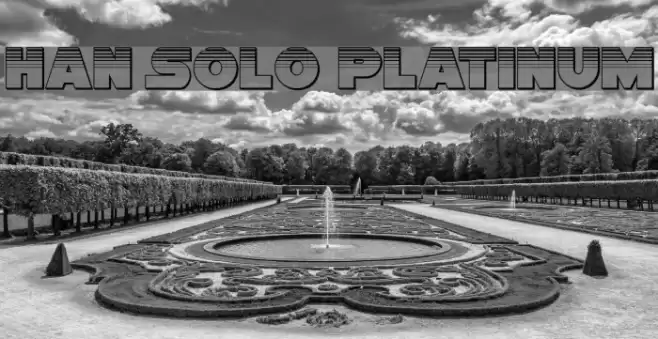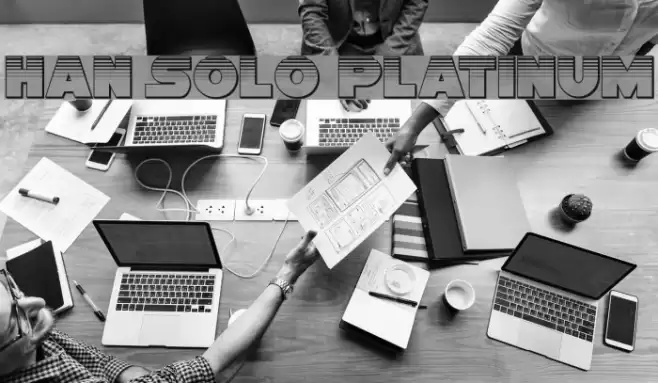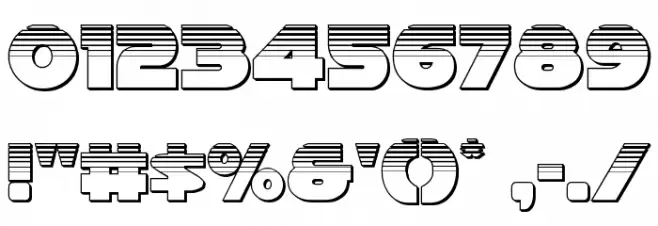
Han Solo Platinum Font
Han Solo Platinum Description
This font features a bold, futuristic design with a distinct geometric structure. Each character is outlined with multiple horizontal lines, creating a layered effect that adds depth and dimension. The uppercase letters are uniform in height, while the lowercase letters maintain a consistent style, enhancing readability. The numbers and special characters follow the same design principles, ensuring a cohesive look across all elements. This font's unique style makes it stand out, offering a modern and dynamic aesthetic suitable for various creative applications.
A bold, futuristic font with geometric outlines and layered horizontal lines from Uncategorized fonts.
- Proposed Projects: Ideal for sci-fi themed projects, video game titles, posters, and branding that requires a modern, edgy look.
- Overall Style: Futuristic, Modern